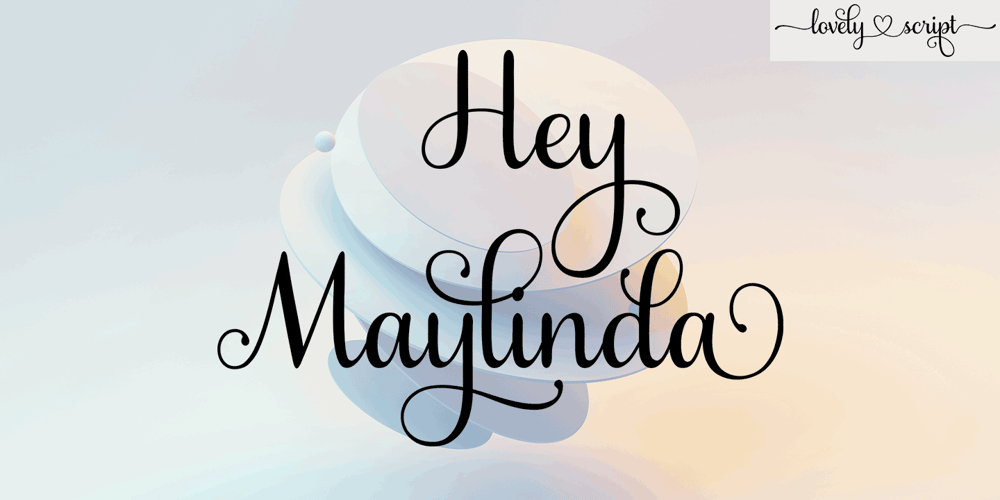
Hey Maylinda Font Family was designed by Vina Amelia and published by Amelia Studio. Hey Maylinda contains 3 styles and family package options. Hey Maylinda is a modern script with handwriting, decorative characters, and dancing baselines! It’s very suitable in use like blog headers, t-shirts, and for weddings, social media, product design, stationery, advertising, clothing, book covers, business cards, greeting cards, branding, merchandise, invitations and handmade quotes and more.Hey Maylinda features OpenType stylistic alternates, ligatures and International support for most Western Languages is included. To enable the OpenType Stylistic alternates, you need a program that supports OpenType features such as Adobe Illustrator CS, Adobe Indesign & CorelDraw X6-X7, Microsoft Word 2010 or later versions.How to access all alternative characters using Adobe Illustrator:https://www.youtube.com/watch?v=XzwjMkbB-wQHey Maylinda is coded with PUA Unicode, which allows full access to all the extra characters without having special designing software. Mac users can use Font Book , and Windows users can use Character Map to view and copy any of the extra characters to paste into your favourite text editor/app.How to access all alternative characters, using Windows Character Map with Photoshop:https://www.youtube.com/watch?v=Go9vacoYmBwThank you!